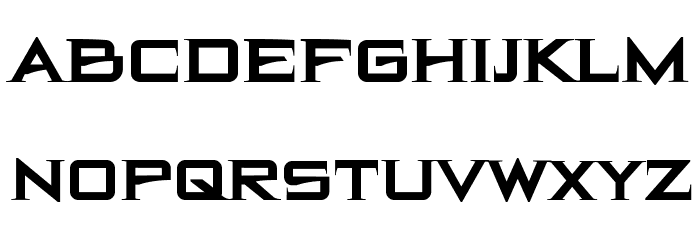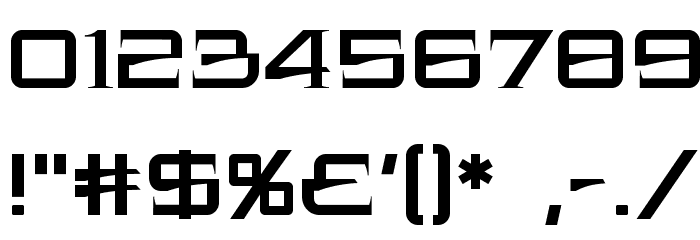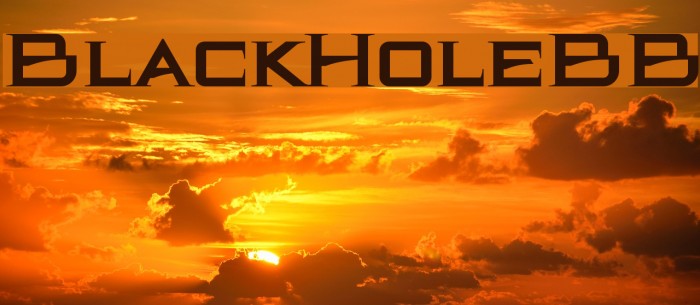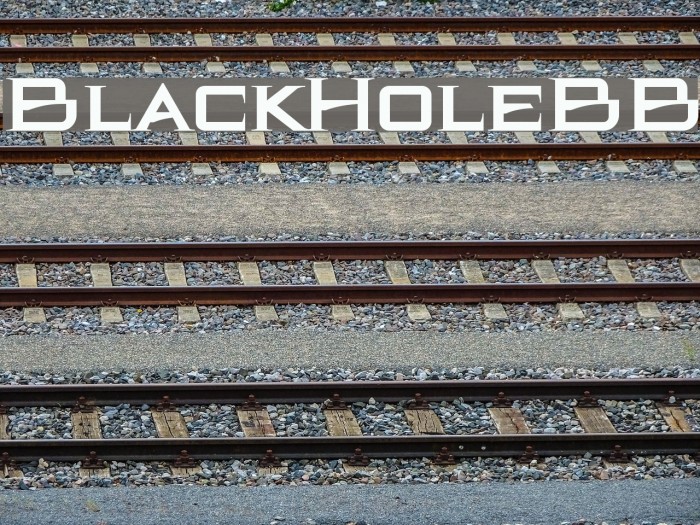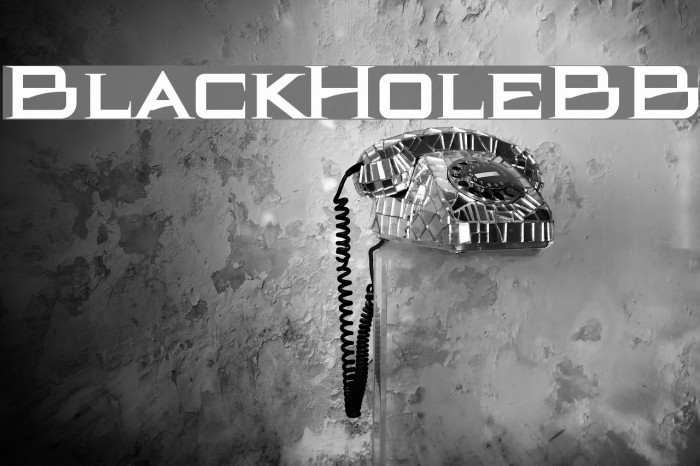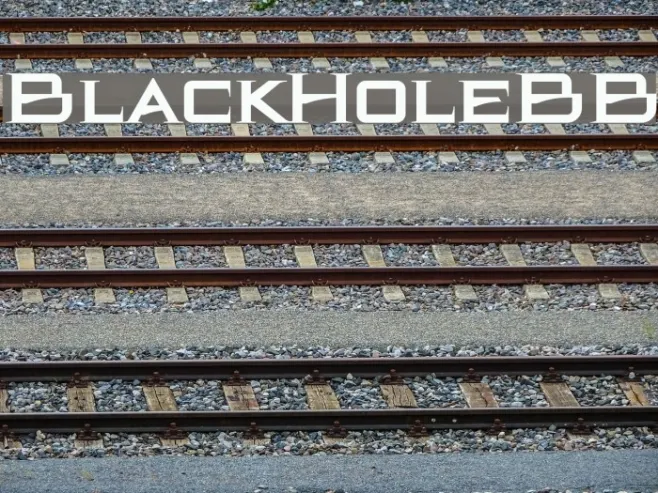
BlackHoleBB Font
This font features a futuristic and angular design, characterized by sharp edges and geometric shapes. The uppercase letters are bold and striking, with a unique cut-out style that adds a sense of movement and dynamism. The lowercase letters maintain the same angular aesthetic, ensuring consistency throughout the typeface. Numbers and special characters are designed with the same attention to detail, making them stand out while remaining cohesive with the overall style. The font's modern and edgy appearance makes it suitable for projects that require a bold and distinctive look.
A futuristic, angular font with sharp edges and geometric shapes.
- Proposed Projects: Ideal for sci-fi themed designs, video game titles, technology branding, and modern posters.